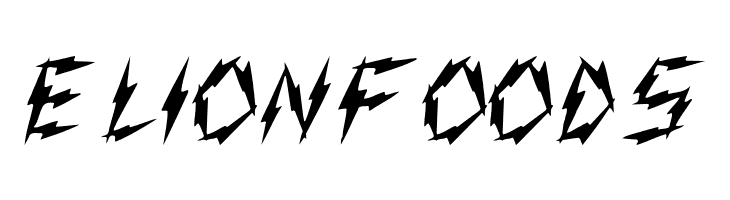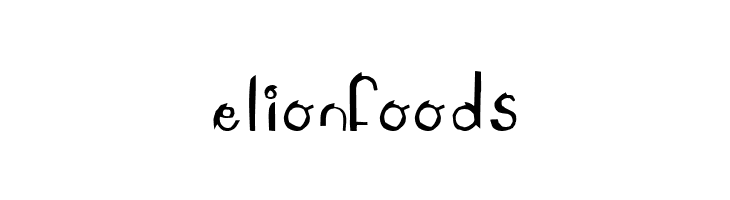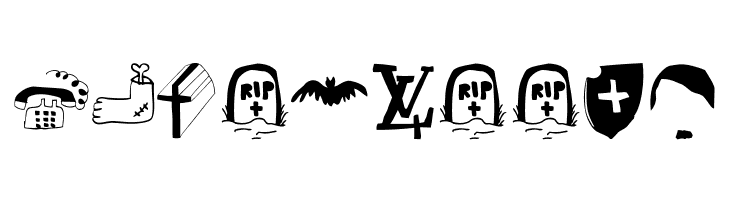
( Fonts by Tn2 - TOM )
An artistic, irregular font with jagged edges and a hand-crafted appearance.
A bold, blocky font with a woodcut style, enclosed in squares.
( Michael D. Adams - www.triskele.com/roadgeek-fonts/ )
A set of bold, clear directional arrow symbols for road signage.
( Fonts by Christophe Feray - www.wcfonts.com )
A diverse collection of silhouette pictograms representing everyday objects.
A playful, textured handwritten font with a dynamic and informal style.
Ornate skull-themed decorative display font inspired by Mexican folk art.
A modern, minimalistic icon set with bold lines and uniform spacing.
An elegant script font with flowing, interconnected letterforms and high contrast strokes.
A bold, vintage-style font with a distressed texture and strong visual impact.
A bold, italic font with a modern and dynamic style.
( Daniel Angermann - www.daniel-angermann.de/ )
A decorative, geometric font with intricate line work and bold shapes.
( typO969 - Douglas Lyle - fonts.typo969.net/ )
A casual, handwritten-style font with smooth, flowing strokes.
( Michael D. Adams - www.triskele.com/roadgeek-fonts/ )
A modern, geometric sans-serif font with uniform strokes and high readability.
( Michael D. Adams - www.triskele.com/roadgeek-fonts/ )
Bold, geometric arrows for signage and wayfinding.
( Fonts by yujikung )
A bold, sketch-style font with a hand-drawn, artistic appearance.
An elegant script font with flowing, ornate letters and intricate flourishes.
An elegant, flowing script font with a calligraphic influence.